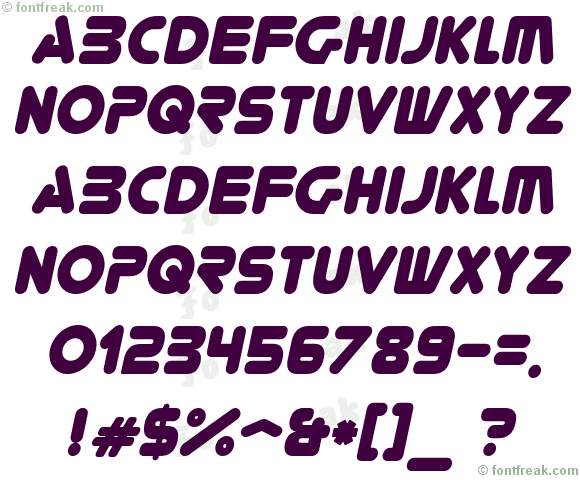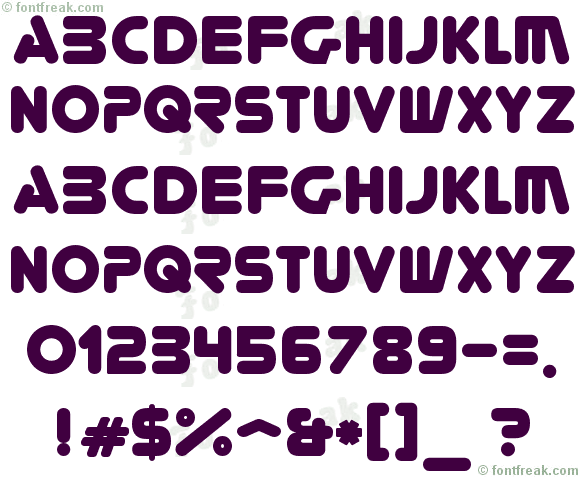
About You're Gone
The "You're Gone" font by Ray Larabie is a striking display typeface that captures attention with its unique design. This font features a bold, sans-serif style characterized by thick strokes and a clean, modern aesthetic. The design showcases a playful yet sophisticated approach, making it suitable for various creative projects. The contrast in stroke weight gives each letter a substantial presence, while the generous spacing enhances readability, making it an excellent choice for both headlines and body text.
Ideal use cases for the "You're Gone" font include wedding invitations, where its elegant yet approachable style can set a romantic tone. It also shines in movie posters, providing a dynamic and eye-catching element that draws viewers in. Additionally, restaurant menus can benefit from its bold lettering, making dish names stand out and enticing customers. Graphic designers may find this font perfect for branding materials, as it conveys both professionalism and creativity. Content creators looking to elevate their social media graphics will also appreciate its versatility.
What sets the "You're Gone" font apart is its ability to blend modern design with playful elements, making it suitable for a wide range of applications. Its bold, clean lines and unique character provide a memorable visual experience that can elevate any design project. Embrace the creativity and versatility of this typeface to make your designs stand out. Get the "You're Gone font free download" today and explore the possibilities it offers.